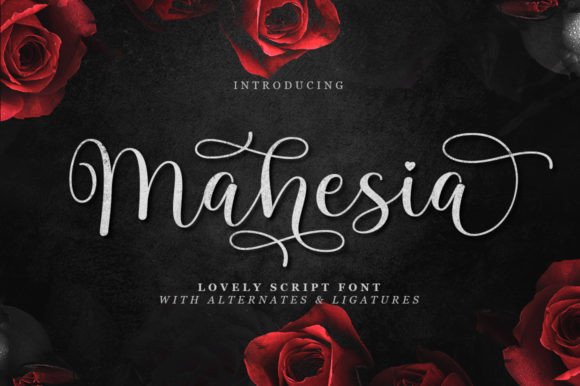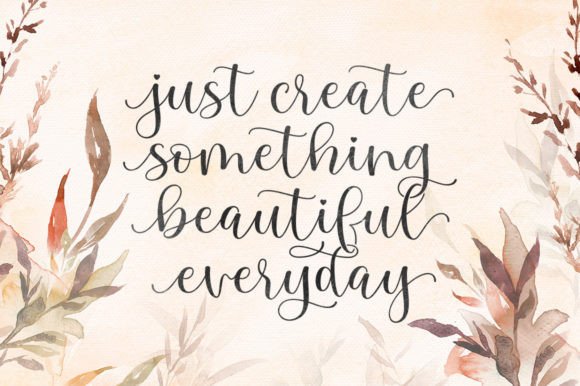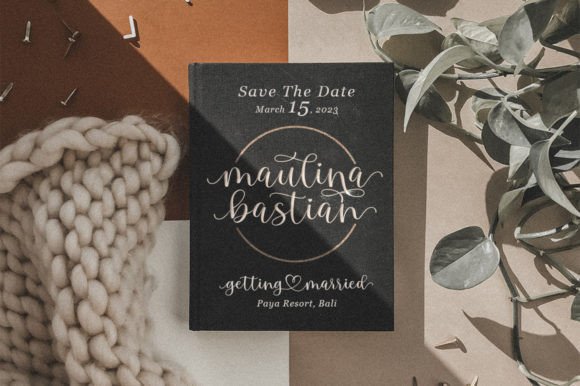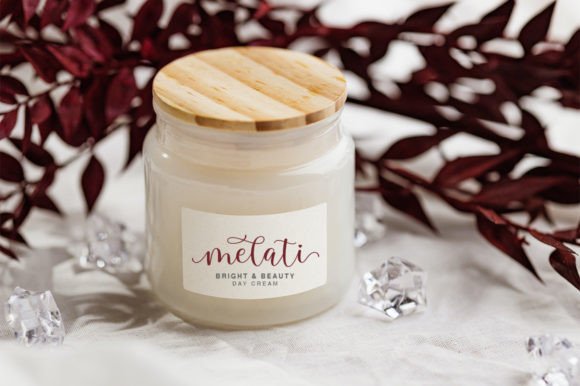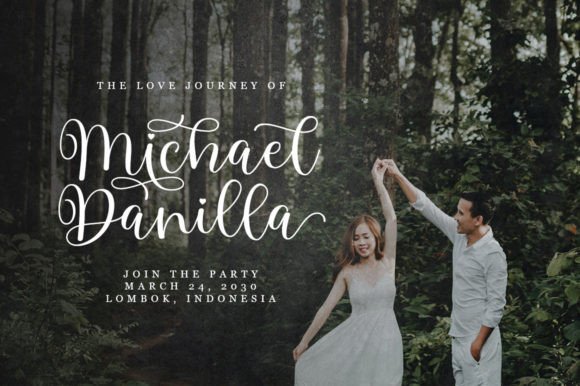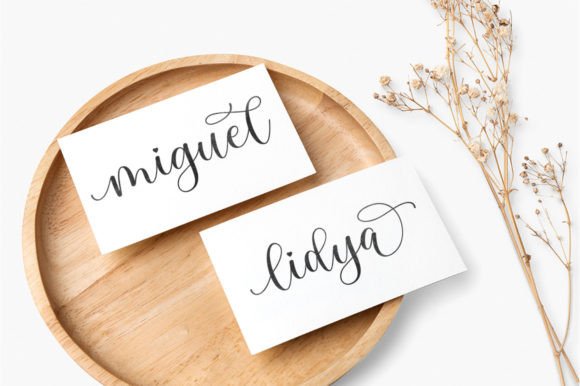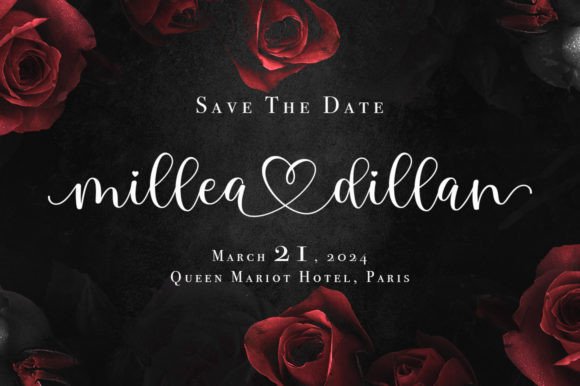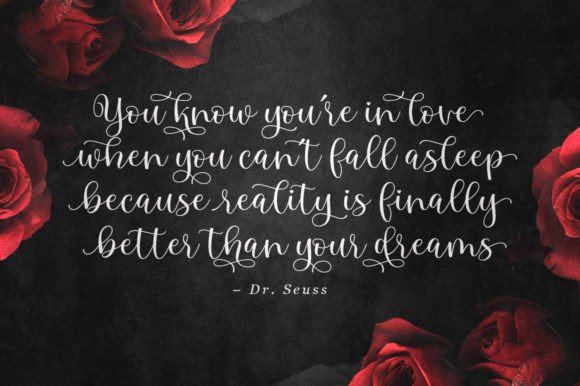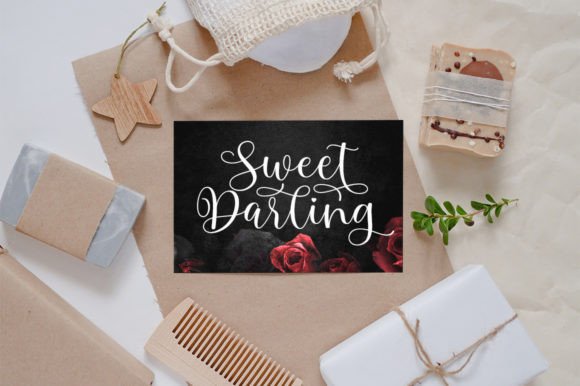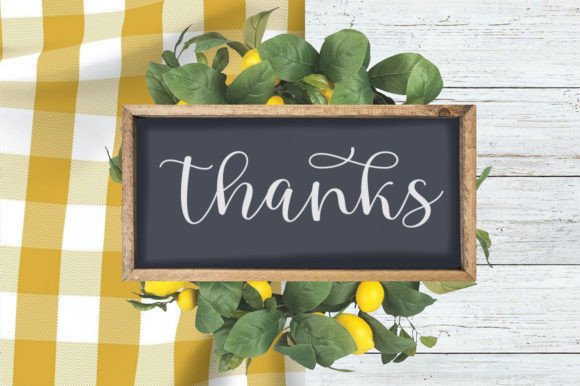
Mahesia Font
About Mahesia Font
Mahesia is a unique and elegant handwritten font designed to bring a personalized and sophisticated feel to your creative projects. Its graceful and flowing strokes make it a perfect choice for designers looking to add warmth and charm to their work. Whether you are creating wedding invitations, thank you cards, greeting cards, or logos, Mahesia stands out with its distinct personality and timeless style.
Elegant and Personalized Handwritten Style
The Mahesia font combines artistic elegance with readability, featuring smooth, flowing letterforms that look like they were crafted by hand. Each character is carefully balanced, creating an overall aesthetic that is both refined and inviting. This makes Mahesia ideal for any project that needs a handcrafted feel with a modern twist. The font’s elegant curves and unique details convey a sense of intimacy and attention to detail, which helps your designs feel more meaningful and authentic.
Ideal Uses for Mahesia Font
This versatile font is perfect for a wide range of design applications, including:
• Wedding Invitations: Mahesia’s elegant script style adds a romantic and sophisticated touch that’s perfect for wedding stationery.
• Thank You and Greeting Cards: The personal feel of the font makes messages more heartfelt and memorable.
• Logos and Branding: Its distinct style allows brands to stand out with a warm and unique identity.
• Social Media Graphics: Use Mahesia to add charm and elegance to posts and stories, making your content visually appealing.
• Packaging and Personalized Gifts: Whether for labels or tags, this font adds a beautiful handcrafted feel that enhances the perceived value of your products.
By incorporating Mahesia into these projects, designers can create work that feels both polished and personal, making it suitable for both formal and casual uses.
Why Choose Mahesia Font?
Designers and creatives choose Mahesia for several reasons:
• Unique and elegant handwritten style: The font offers a fresh take on the classic handwritten script, with details that make it stand out.
• Clear, balanced letterforms: Mahesia balances artistic expression with legibility, so your text looks great in various sizes and uses.
• Versatility: Whether you’re designing for print or digital, Mahesia adapts beautifully across different media.
These qualities ensure that Mahesia is not only visually appealing but also practical for real-world design needs.
Add Sophistication and Warmth to Your Designs
Typography greatly influences how your audience perceives your message. The Mahesia font adds a layer of sophistication and warmth that connects emotionally, making your designs stand out. Whether you want to evoke romance, elegance, or simply a friendly and inviting feel, Mahesia delivers a perfect balance of all these qualities.
In summary, the Mahesia font is a unique and elegant handwritten script that provides a personalized and graceful look for a variety of design projects. Its timeless style, combined with excellent readability and versatility, makes it an essential addition to any designer’s toolkit. Add Mahesia to your font collection to craft beautiful, heartfelt, and memorable designs that truly resonate with your audience.